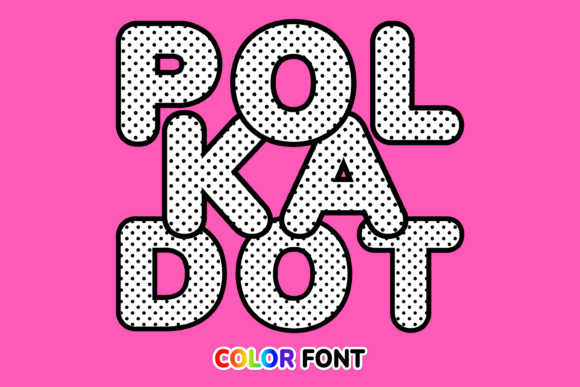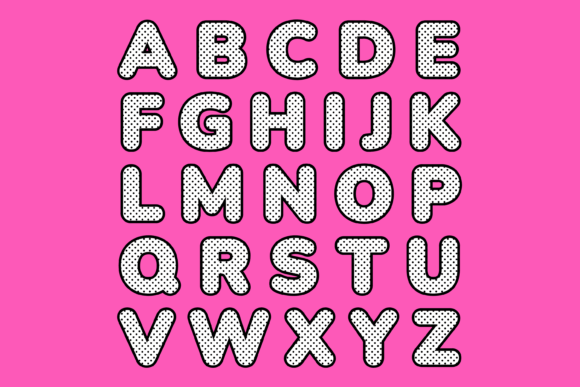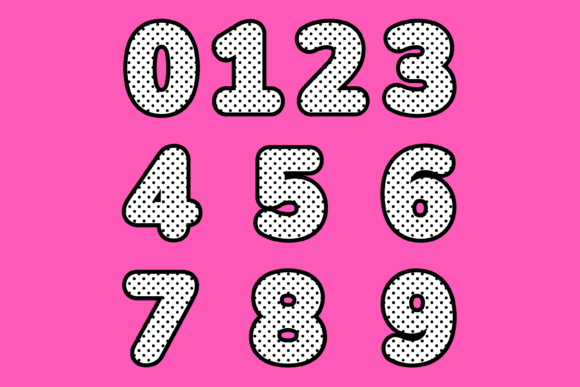
Polka Dot Font
Polka Dot Color is an incredibly cool color font designed in the style of the Polka Dot Pattern. Whether you use it for custom designs, DIY crafts, or just any creation that requires a lovely touch, this font will be an amazing choice.